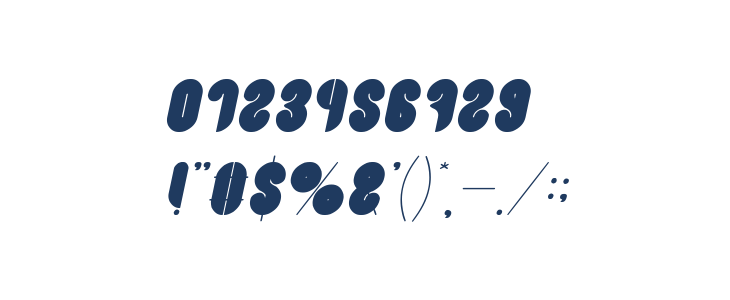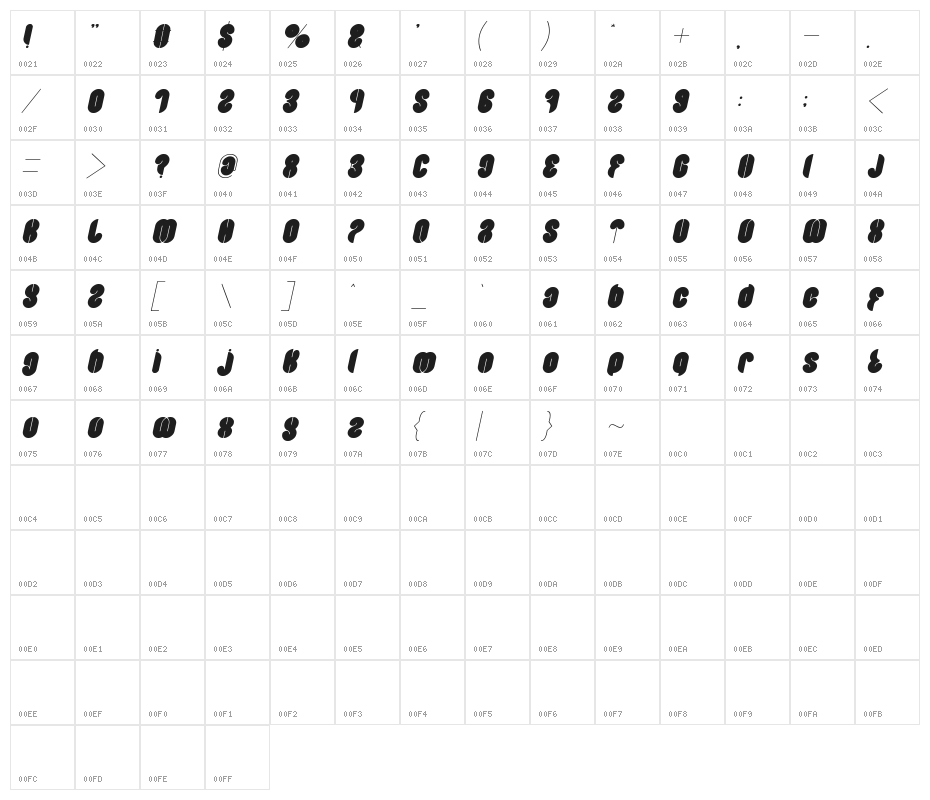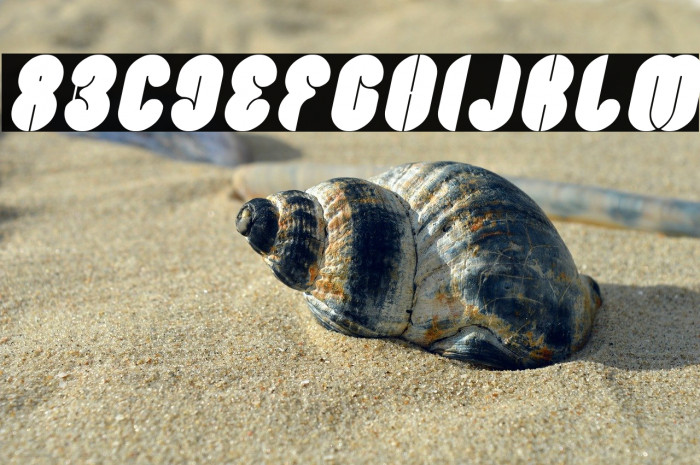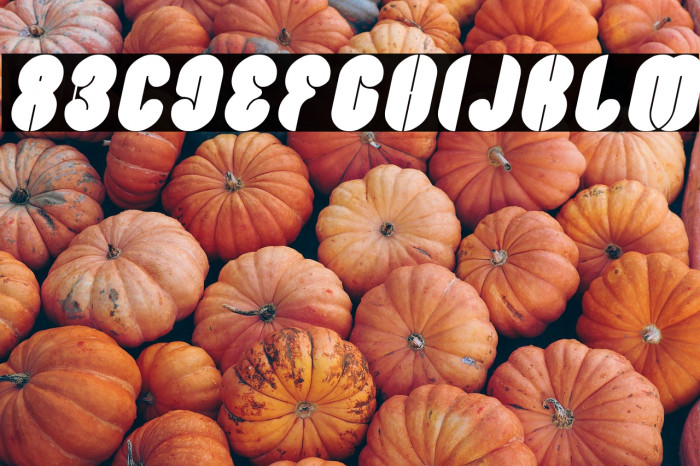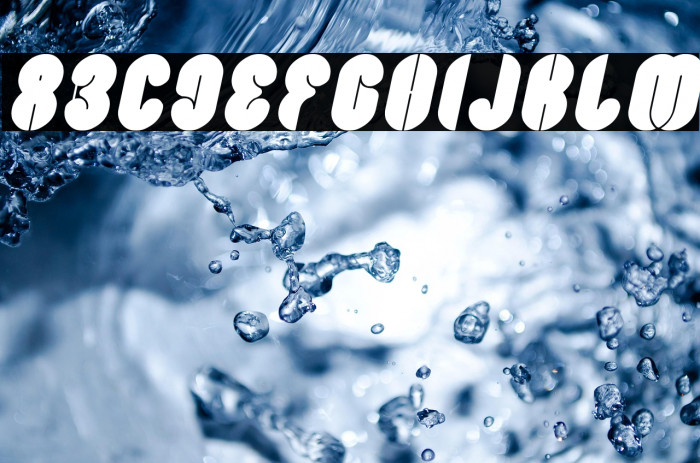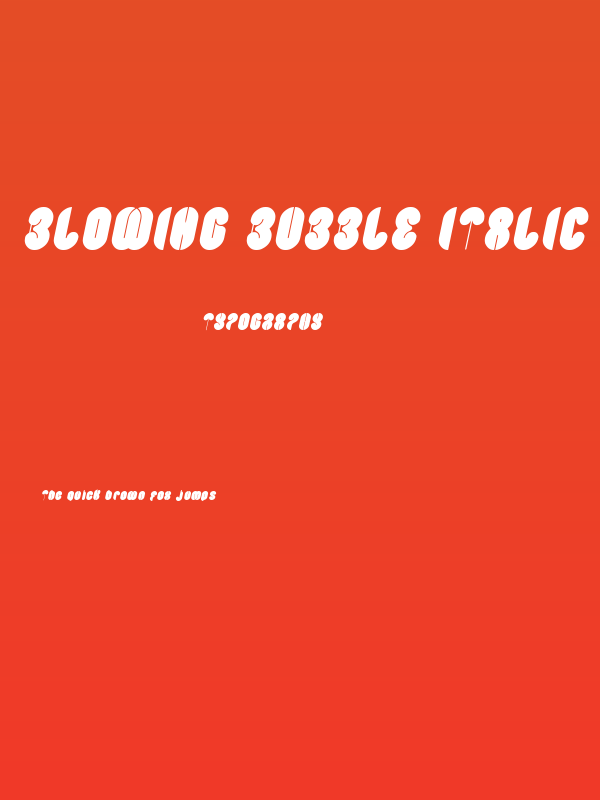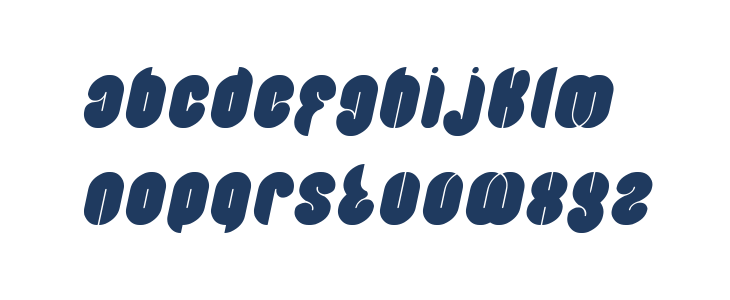
Blowing Bubble Italic Font
Blowing Bubble Italic Description
This font features a playful and bold design with a distinct bubble-like appearance. Each character is rounded and filled, giving it a soft and approachable look. The italic slant adds a dynamic and energetic feel, making it stand out. The strokes are thick and uniform, contributing to a high contrast between the characters and the background. The overall style is modern and decorative, suitable for projects that require a fun and engaging typeface. The unique shape of each letter ensures readability while maintaining a whimsical aesthetic.
| Proposed Projects | Ideal for children's book covers, playful branding, party invitations, and creative posters. |